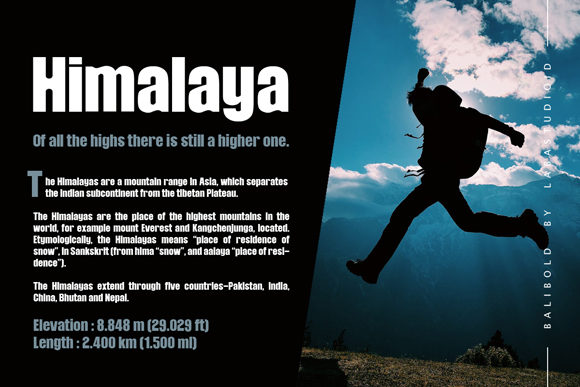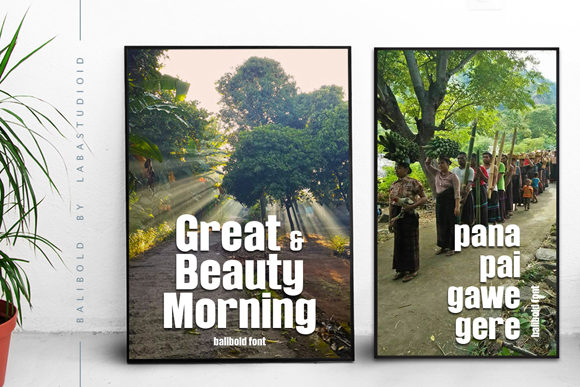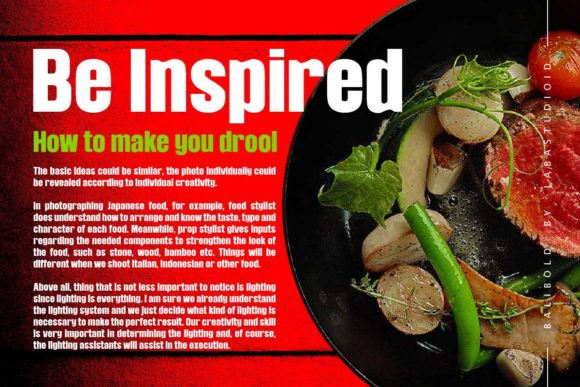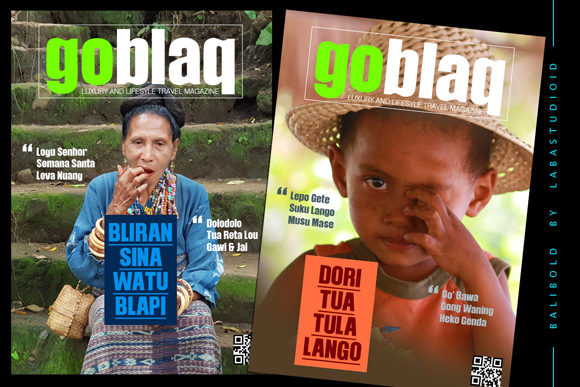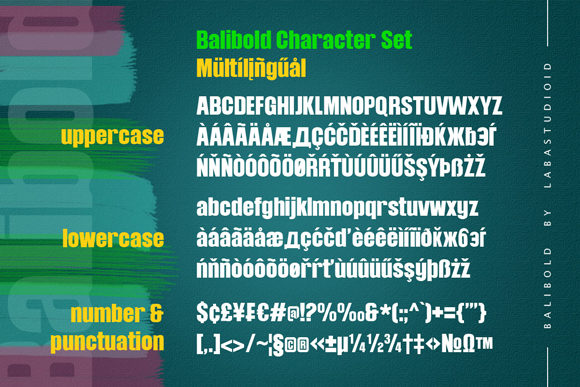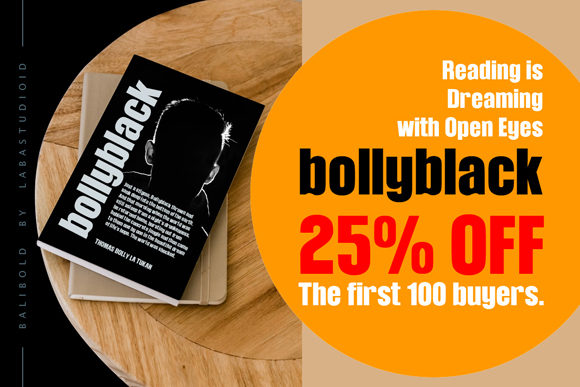
The Birth of a New Favorite: Balibold Font
As designers, we’ve all been there – staring at a blank canvas, desperately searching for the perfect font to bring our vision to life. It’s that moment of frustration, followed by a spark of inspiration, that often leads to the discovery of something truly special. For me, that moment came when I stumbled upon the Balibold Font.
Handcrafted with love and care, the Balibold Font is a bold sans serif font that exudes a casual charm, making it the perfect choice for any design project. Its readability and versatility make it an invaluable asset for designers, allowing them to create a wide range of designs, from logos and brochures to websites and advertisements.
Whether you’re a seasoned pro or just starting out, the Balibold Font is a true favorite waiting to happen. In this article, we’ll delve into the world of this incredible font, exploring its history, features, and the endless possibilities it offers.
Key Features of Balibold Font
- Unique Characteristics: The font features a bold, sans-serif design with rounded edges, making it highly legible and easy to read.
Review of Balibold Font
I had the chance to work with the Balibold font, and I must say it’s a mixed bag for me. Let’s start with what works well:
- ✨ Unique aesthetic: The Balibold font has a distinct, quirky feel that can add character to designs. It’s perfect for those who want to stand out from the crowd.
- ✨ Good legibility: Despite its unusual appearance, the font is surprisingly easy to read, especially at larger sizes.
- ✨ High resolution: The font scales well, making it suitable for a variety of applications, from web design to print materials.
However, I have to mention some limitations:
- ⚠️ Limited font sizes: While the font is great at larger sizes, it can become quite messy and difficult to read at smaller sizes.
- ⚠️ Not ideal for body text: Due to its unusual shape and limited font sizes, I wouldn’t recommend using Balibold as a primary font for body text.
Overall, I think the Balibold font is a great addition to any designer’s toolkit, but it’s best used in moderation and in the right context. It’s perfect for headlines, titles, or any design element where you want to add a touch of personality.
The Balibold Font is ideal for:
- Creating a vintage or distressed look.
- Adding a touch of elegance to formal documents.
- Designing posters, flyers, and other marketing materials.
Alternatives to Balibold Font
Montserrat is a sans-serif font designed by Julieta Ulanovsky. It is a modern and clean font that works well for digital and print media. Montserrat is a great alternative to Balibold Font for titles and headings, as it has a similar geometric feel but with a more angular and edgy look.
Avenir is a geometric sans-serif font designed by Jean François Porchez. It is a highly legible font that works well for body text and titles. Avenir is a good alternative to Balibold Font for body text, as it has a similar modern and clean feel but with a more rounded and friendly look.
Open Sans is a sans-serif font designed by Steve Matteson. It is a highly legible font that works well for digital media. Open Sans is a great alternative to Balibold Font for body text, as it has a similar clean and modern feel but with a more neutral and versatile look.
Inter is a sans-serif font designed by Rasmus Andersson. It is a highly legible font that works well for digital media. Inter is a good alternative to Balibold Font for titles and headings, as it has a similar modern and clean feel but with a more geometric and precise look.